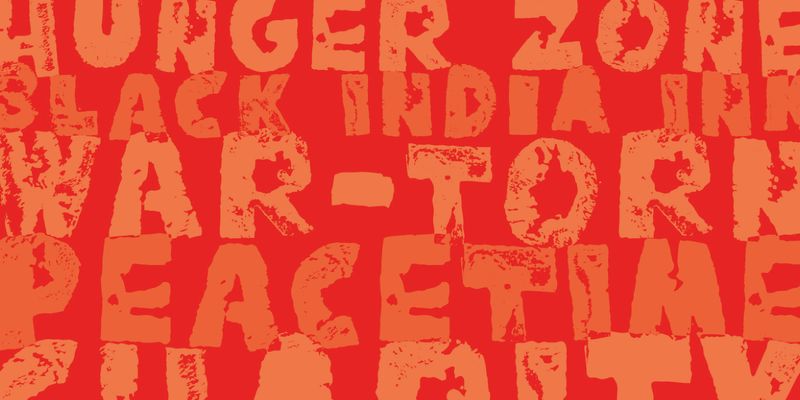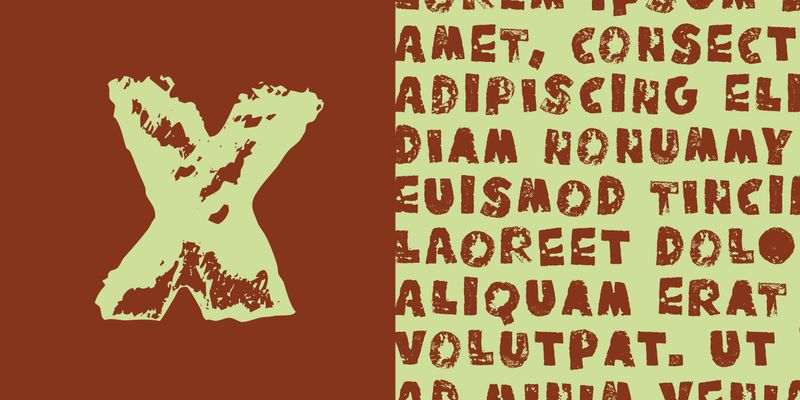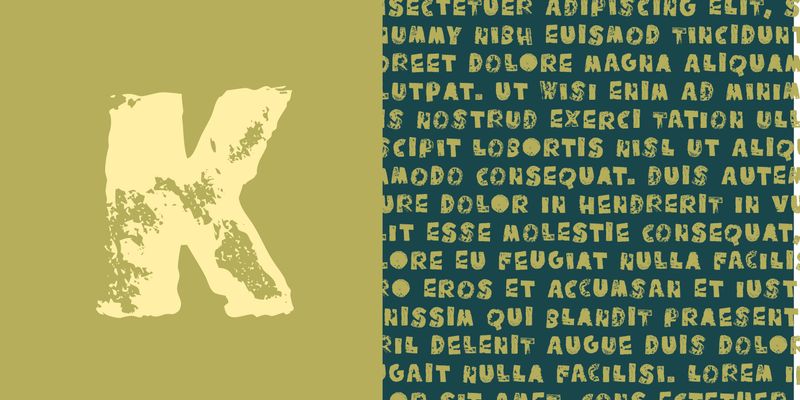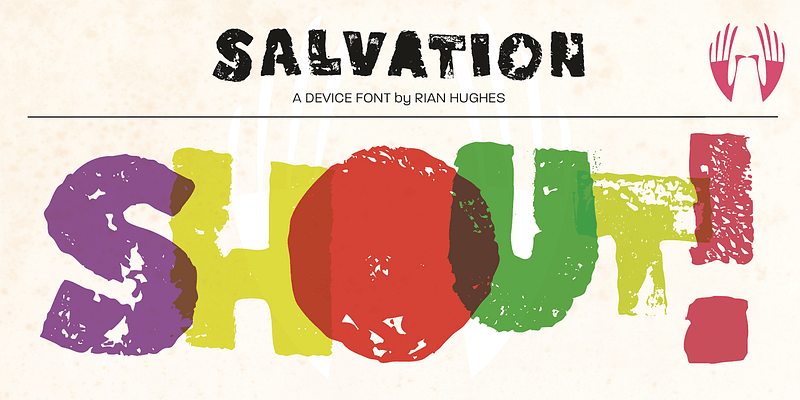
Rough and ready, this typeface was derived from potato prints. Playful and crafty in bright, overlapping colours, mysterious and gritty in blacks and greys, it has a wide range of applications.
Type, design and imagery by English illustrator and typographer Rian Hughes.